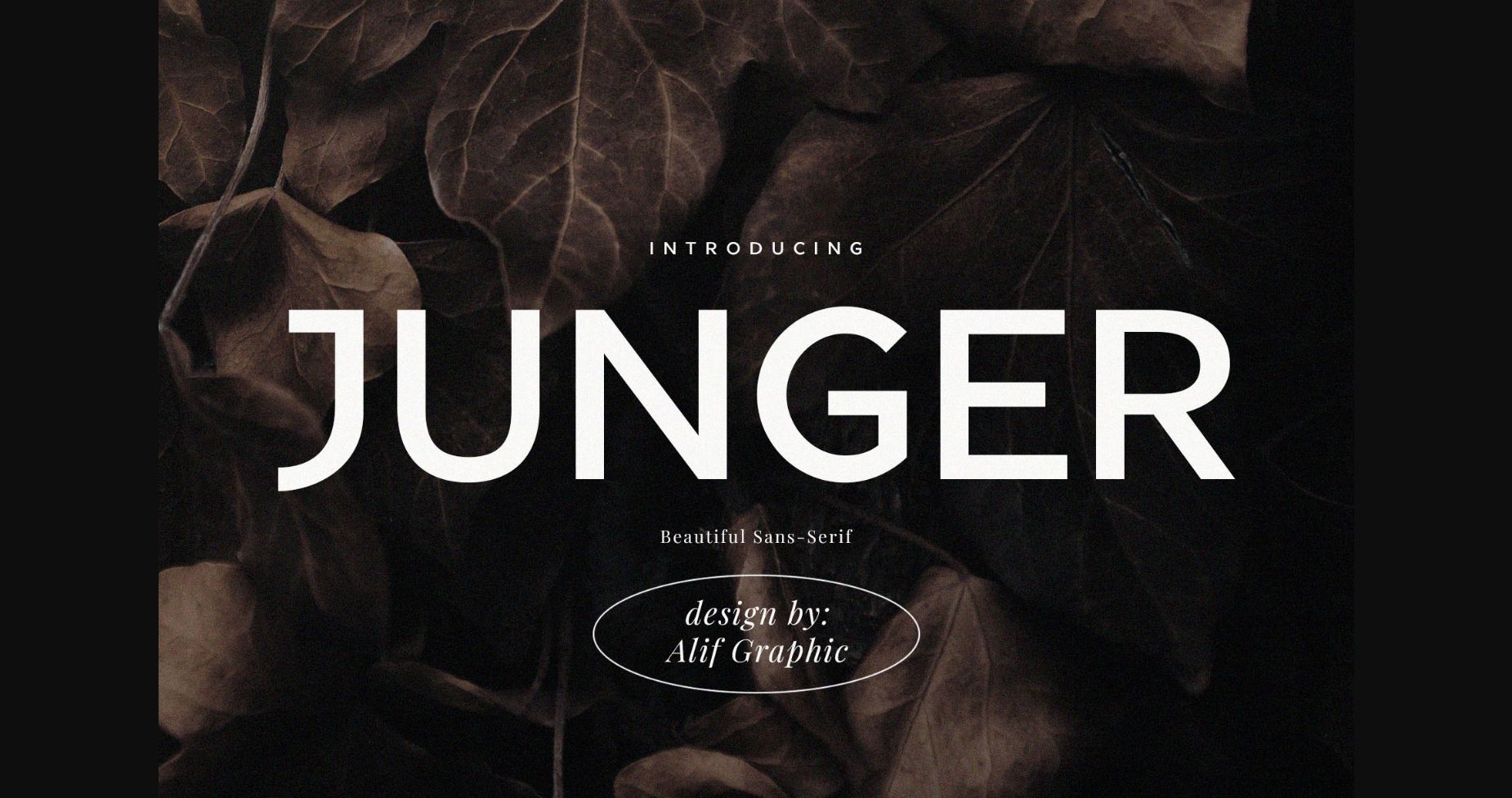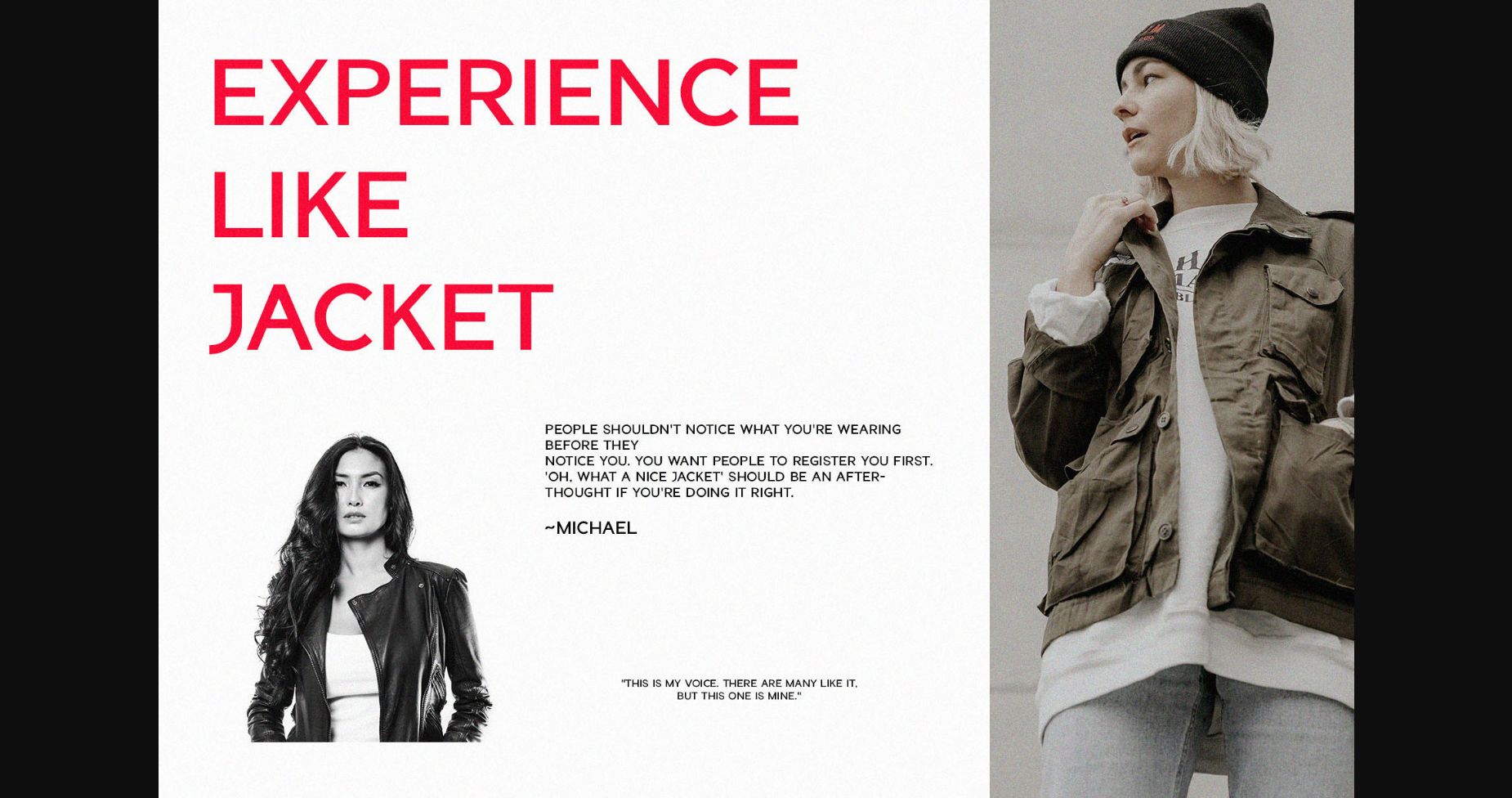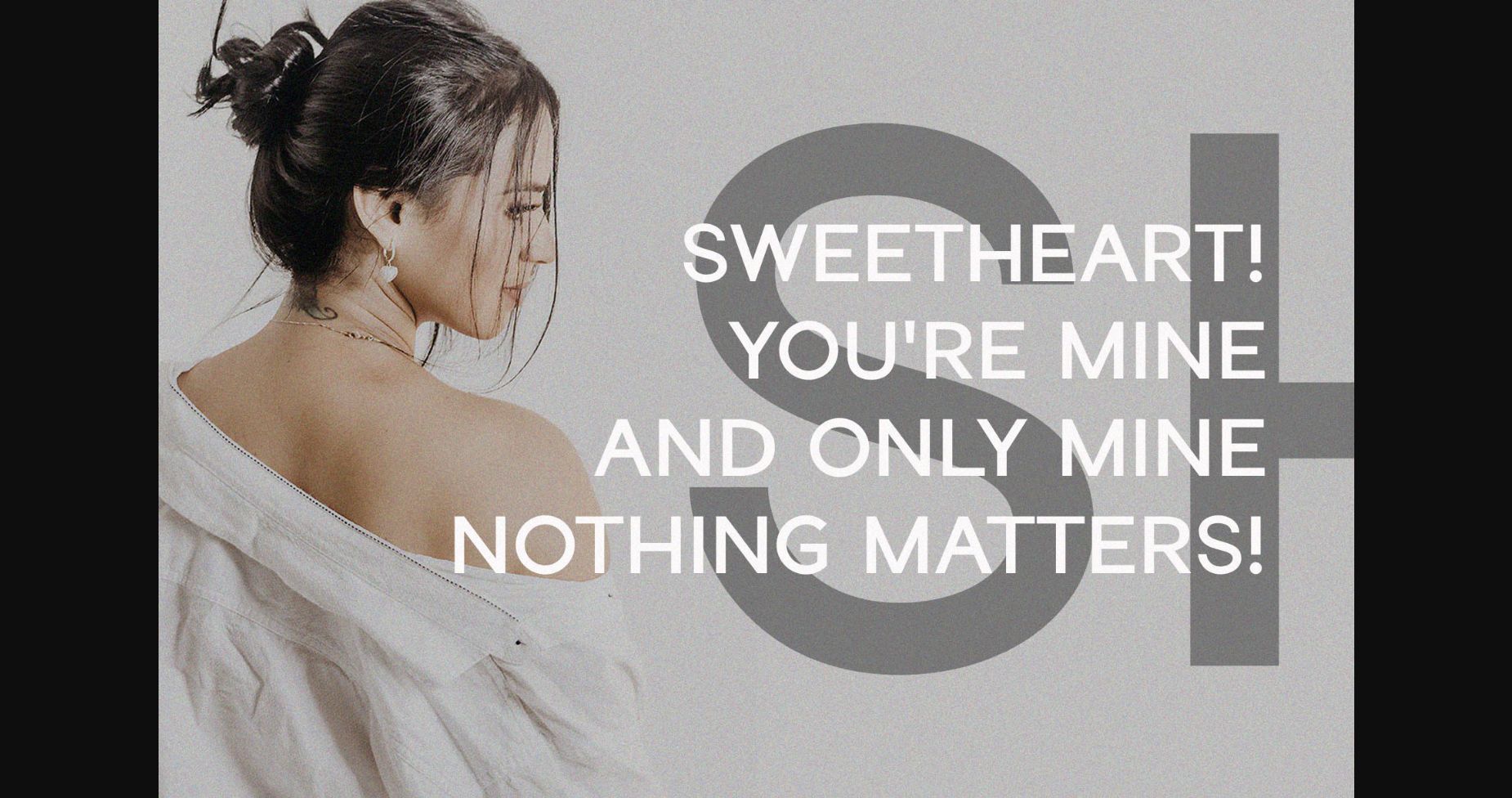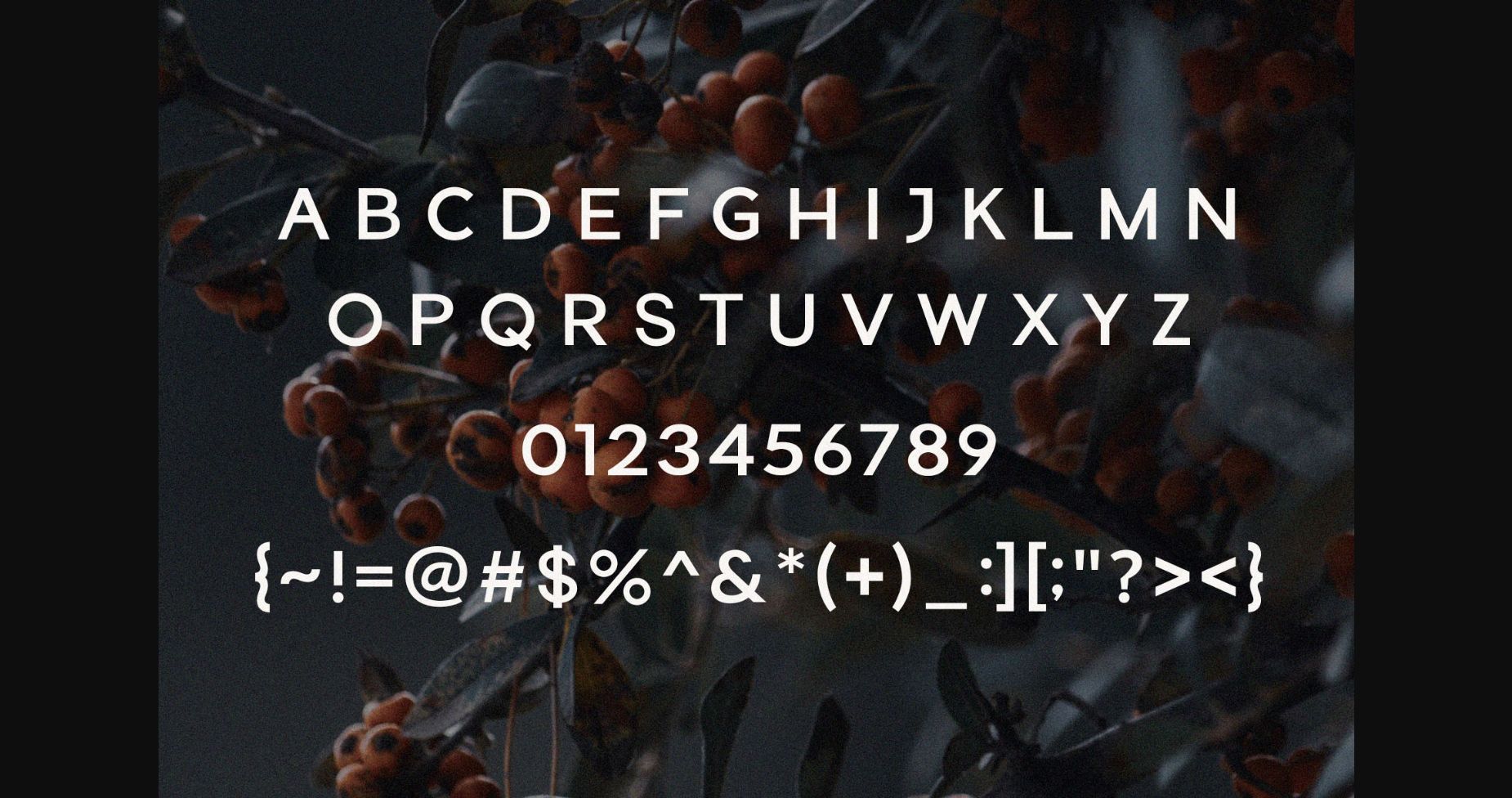
About Junger Font
Introducing the new Junger Modern Sans
Junger is a classy, modern sans font.
This font is modern and elegant and works great for websites, logos, magazines, and social media. This font is matched and ready to be used together for your next design!
For those of you who need a touch of elegance, style, classy, chic, and modernity for your designs, this font is made for you!
Junger is a classy, modern sans font.
This font is modern and elegant and works great for websites, logos, magazines, and social media. This font is matched and ready to be used together for your next design!
For those of you who need a touch of elegance, style, classy, chic, and modernity for your designs, this font is made for you!